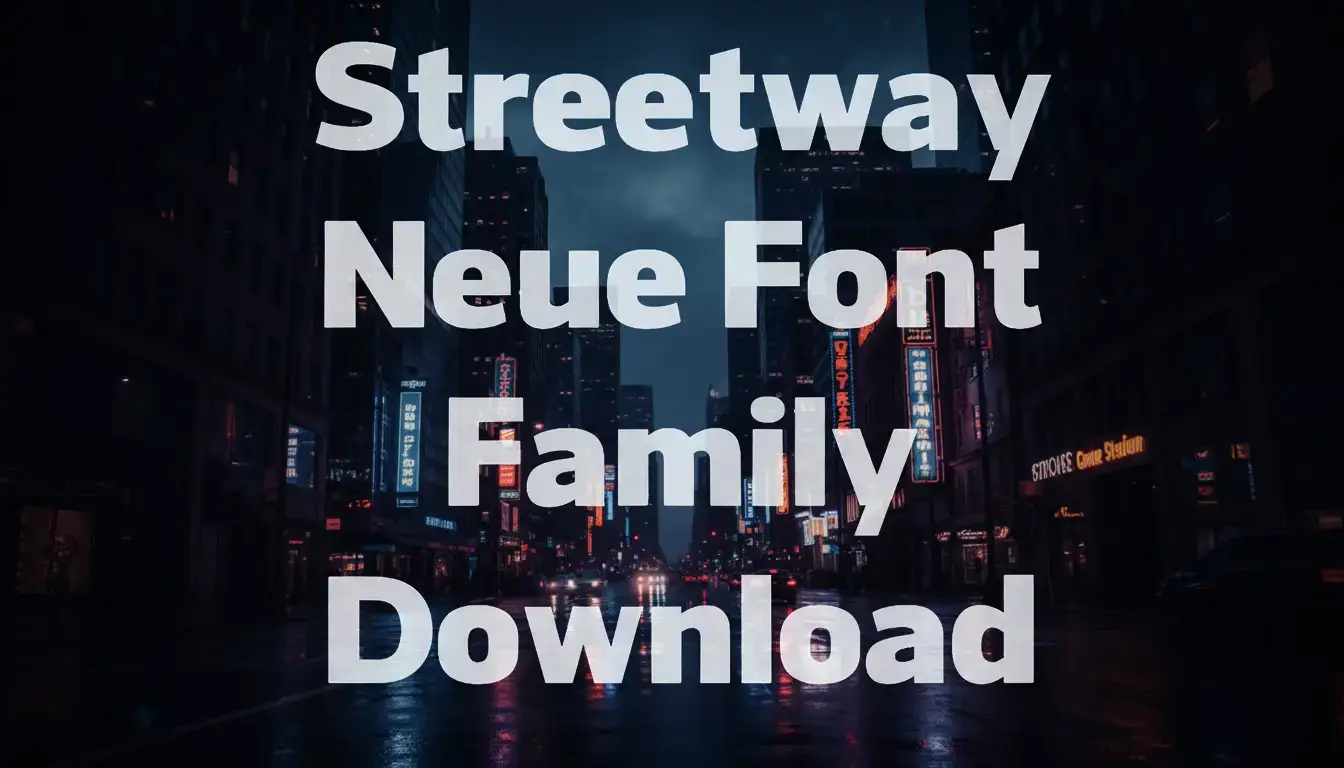
Streetway Neue Font Family
Streetway Neue Font Family is a sans serif font. Simple, open letter shapes keep it easy to read at almost any size, from app buttons to big headlines. The free download includes ten styles, and you can try every one of them with your own text in the preview above.
- Font styles: 10 (Regular, Light, Light Italic, Bold, Semi Bold, Bold Italic, Semi Bold Italic, Black, Black Italic and Italic)
- Glyphs: 479 in the Regular style
What You Can Type With Streetway Neue Font Family
With complete upper and lowercase letters and all ten digits, Streetway Neue Font Family is ready for real wording, not just a single headline. Common punctuation such as &, !, ? and @ is included as well. It also has the accented letters you need for Spanish, French, German, Portuguese and Italian. On top of that, it includes Cyrillic characters.
Where Streetway Neue Font Family Works Best
Think of Streetway Neue Font Family for websites, app screens and clean logos. It works for headings and body text alike. If the download has several weights, use a heavier one for titles and a lighter one for paragraphs. Because the family has more than one style, you can mix them in a single design for headings, subheadings and highlights.
Does Streetway Neue Font Family support accented letters?
Yes. Streetway Neue Font Family includes the accented letters needed for Spanish, French, German, Portuguese and Italian, so it works for more than just English.